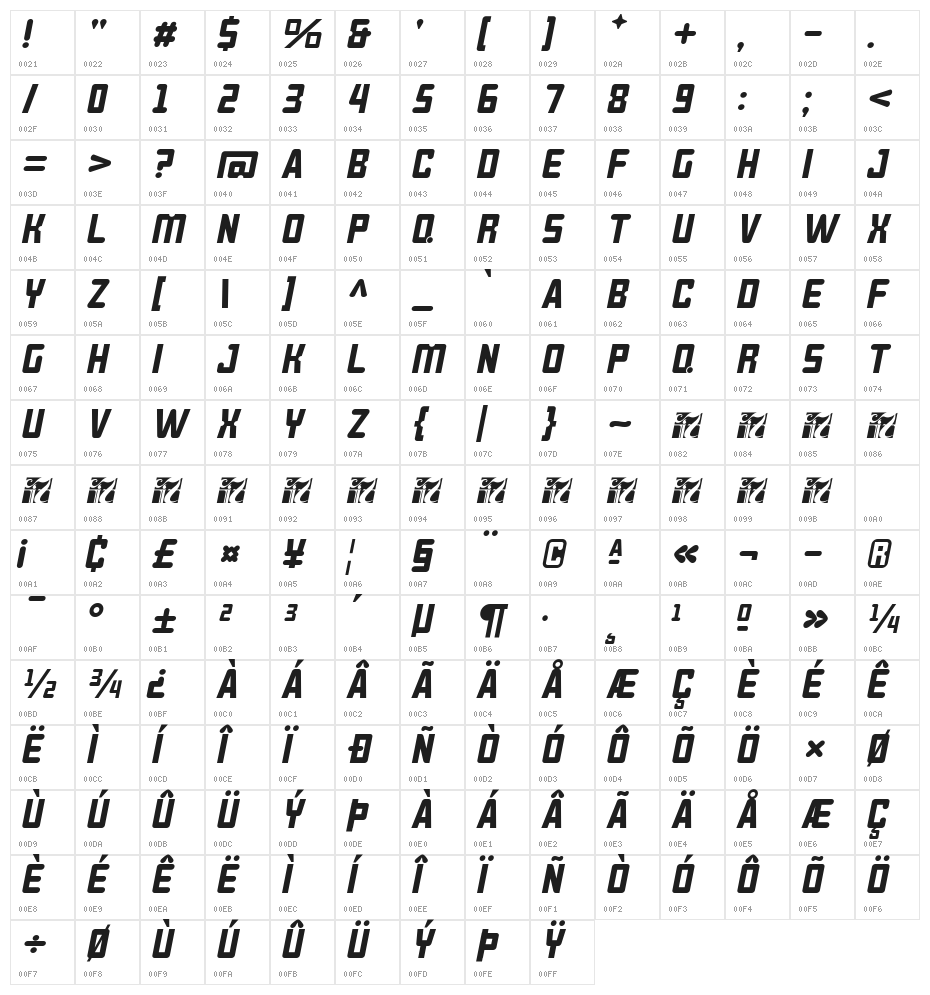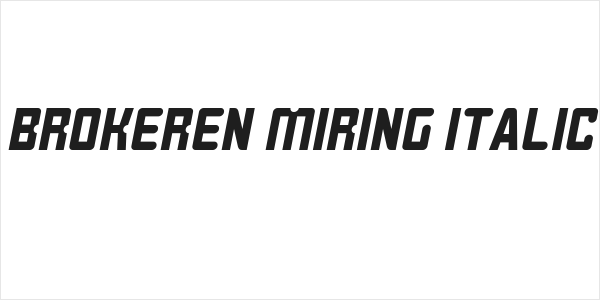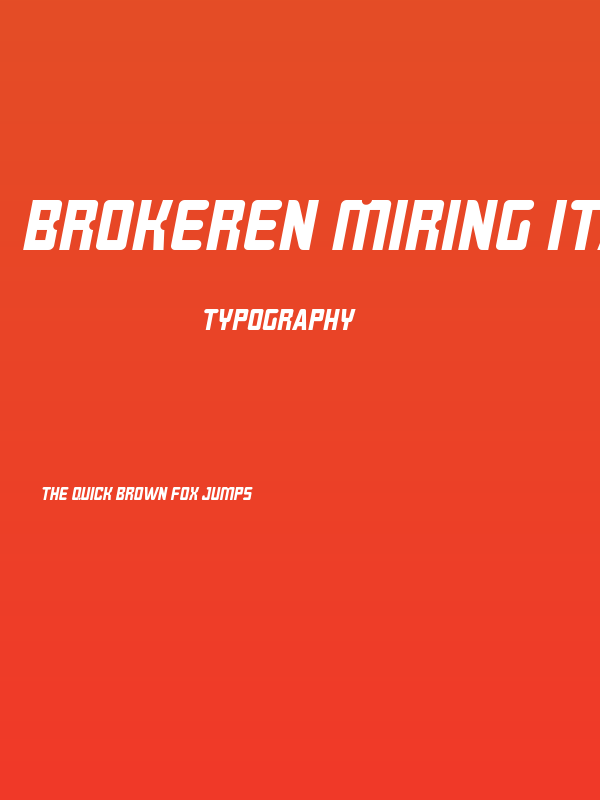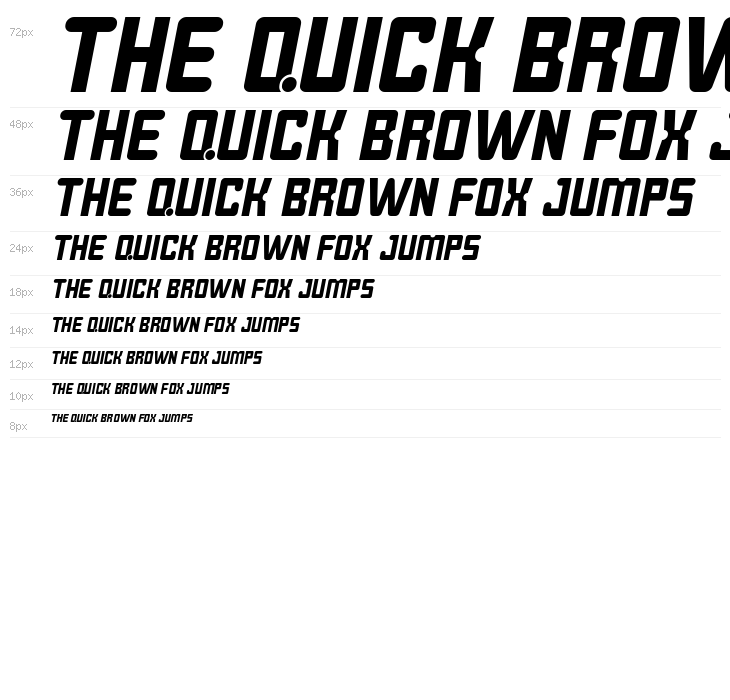
BROKEREN MIRING Italic Font
BROKEREN MIRING Italic Description
This font features a bold, italicized style with a modern and dynamic appearance. The characters are slightly slanted, giving a sense of motion and energy. The strokes are thick and consistent, providing a strong visual impact. The design includes unique elements such as rounded corners and subtle geometric shapes within certain letters, adding a distinctive flair. The numbers and special characters maintain the same boldness and style, ensuring uniformity across all elements. This font is well-suited for projects that require a contemporary and assertive look.
| Use Case | Headlines, Logos, Advertisements |
| Proposed Projects | Ideal for sports branding, dynamic advertisements, modern logos, and eye-catching headlines. |